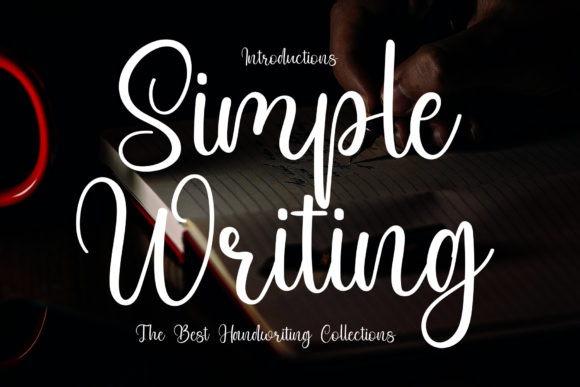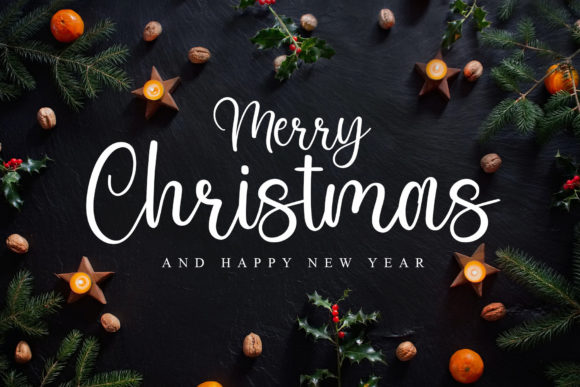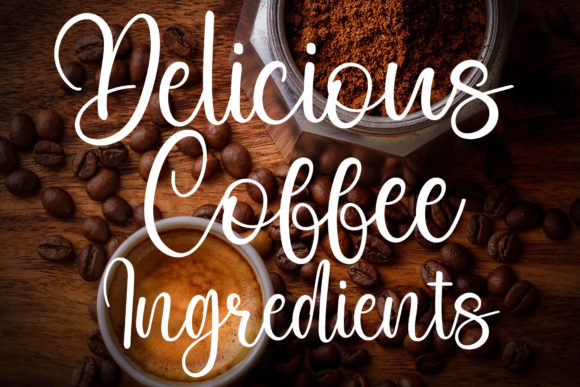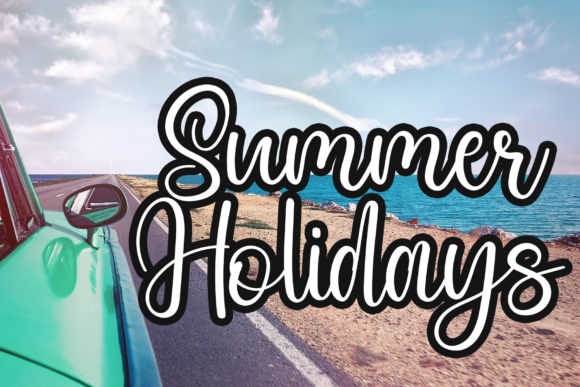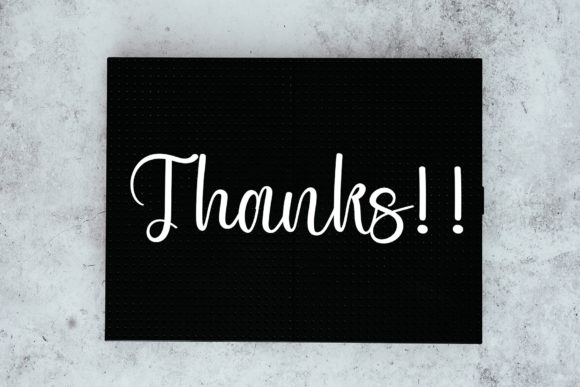
Simple Writing Font
About Simple Writing Font
“Simple Writing” is not just a font—it’s a beautiful and flowing handwritten typeface that adds a touch of elegance to any project. With its smooth and graceful strokes, “Simple Writing” is versatile and adaptable, making it suitable for a wide range of design applications.
Whether you’re creating wall displays, wedding invitations, social media posts logos, advertisements, product packaging, product designs, labels, photography, watermarks, invitations, stationery, or any other project that requires impressive typography, “Simple Writing” is the perfect choice.
Its timeless appeal and versatility ensure that it complements various design styles and themes, enhancing them with its beauty and sophistication. The fluidity of its letterforms adds a touch of charm and personality to your designs, captivating the viewer’s attention and leaving a lasting impression.
In summary, “Simple Writing” is more than just a font—it’s a versatile and elegant tool that empowers designers to create stunning and memorable designs across a wide range of projects. Embrace its flowing beauty and watch as it elevates your typography to new heights of sophistication and style.